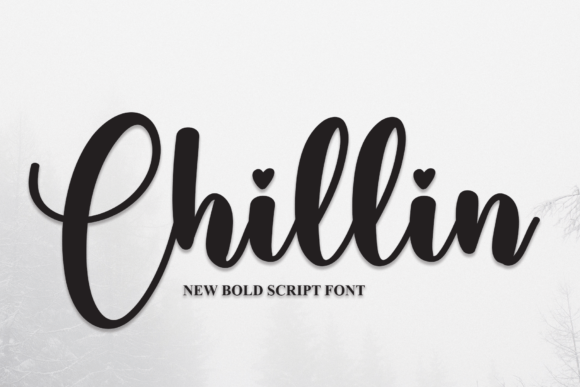
Introducing Chillin Font, the enchanting script font that will captivate your senses and bring a touch of elegance to your creative projects.
With its graceful curves and playful charm, Chillin Font is a beautiful expression of creativity. Its delicate strokes mimic the natural flow of a handwritten script, evoking a sense of intimacy and warmth that is sure to leave a lasting impression.
Whether you're crafting stunning wall displays to adorn your home or designing unforgettable wedding invitations, Chillin Font will add a touch of sophistication to any occasion. Its versatility extends to social media posts, logos, and advertisements, where its elegant style will effortlessly elevate your brand's identity.
Unleash your creativity with Chillin Font and let your imagination soar. Design captivating product packaging and product designs that exude a handcrafted charm, or create eye-catching labels and watermarks that add a personal touch to your projects.
With Chillin Font, the possibilities are endless. Its timeless beauty will complement any photography project, adding a touch of whimsy and romance to your captured moments. Create stunning invitations and stationery that reflect your unique style, making every occasion unforgettable.
Embark on a creative journey with Chillin Font and discover the magic of handwritten artistry in your digital creations. Let your words dance across the screen, infused with the grace and elegance of Chillin Font.